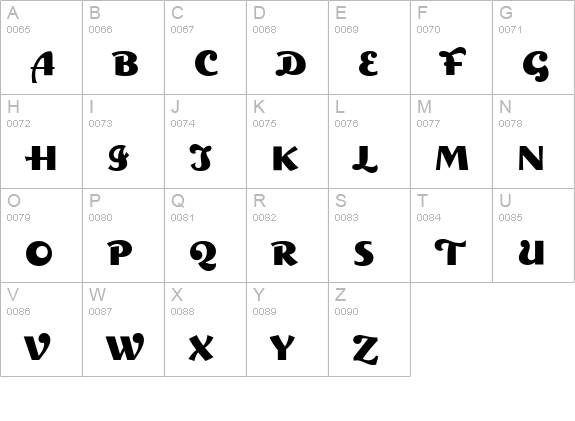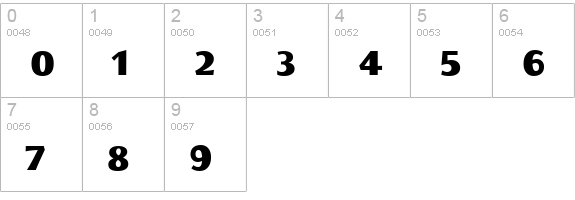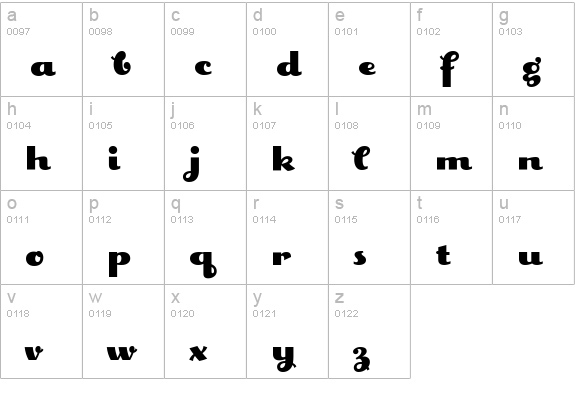
Introducing Geetype font, a modern and elegant typeface perfect for adding a touch of sophistication to your projects. This versatile font features clean lines and a sleek design, making it ideal for a wide range of applications, from branding and advertising to packaging and web design. Geetype font is the perfect choice for those looking to make a statement with their typography. With its unique style and attention-grabbing presence, this font is sure to captivate your audience and leave a lasting impression. The best part? Geetype font is available for free download at FontsMarket.com. Simply visit the website and start using this stunning font in your projects today. Don't miss out on the opportunity to elevate your designs with Geetype font - download it now and let your creativity shine!